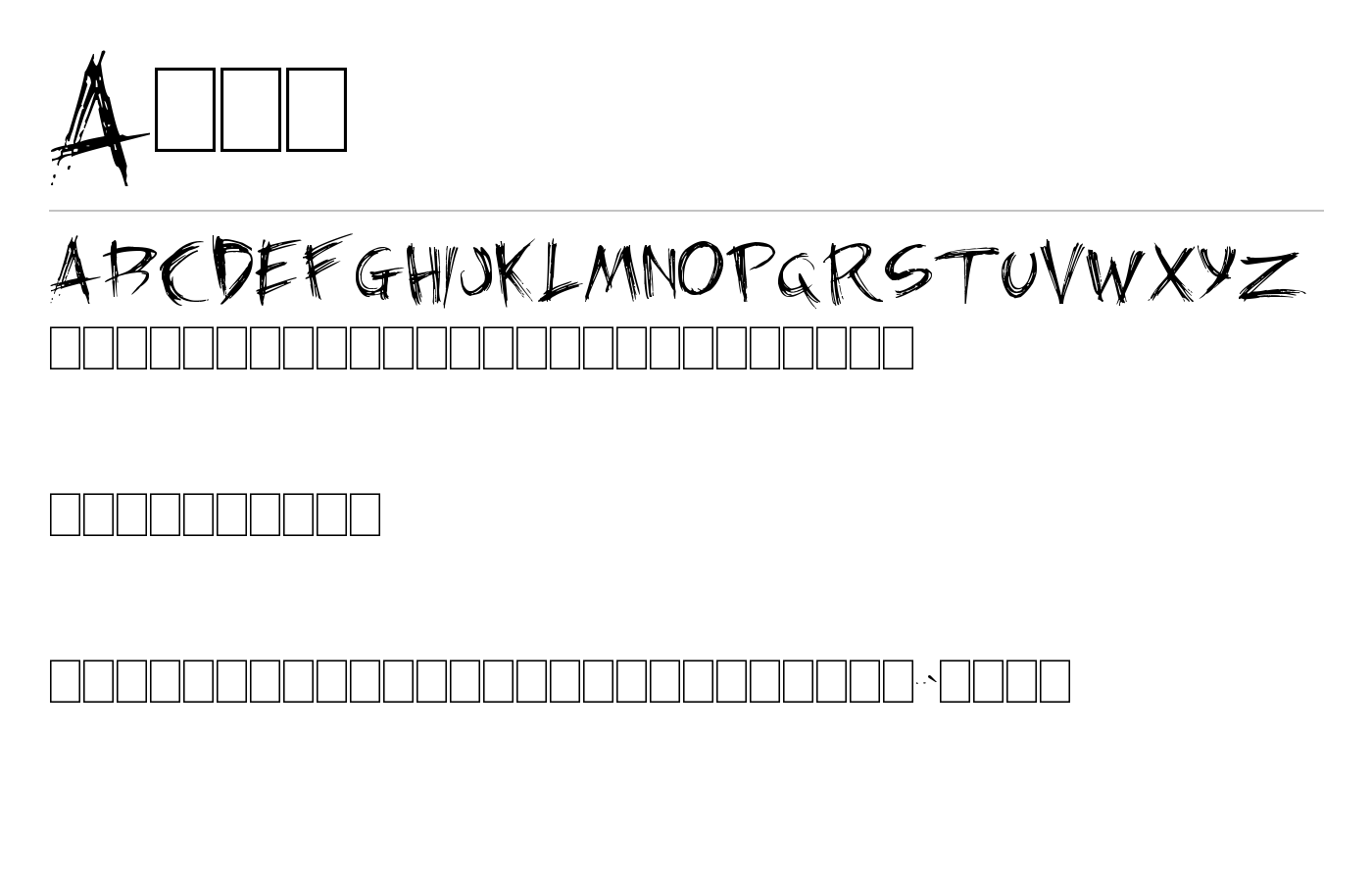
Also Font is a bold, hand-drawn sans serif that brings an edgy, artistic vibe with its rough, brushstroke-like lines and irregular letter shapes. This font feels raw and expressive, making it perfect for creative projects, posters, or edgy branding that needs a dynamic, informal touch. Its distinct style works especially well in large sizes where its textured details can truly stand out.
Also Font